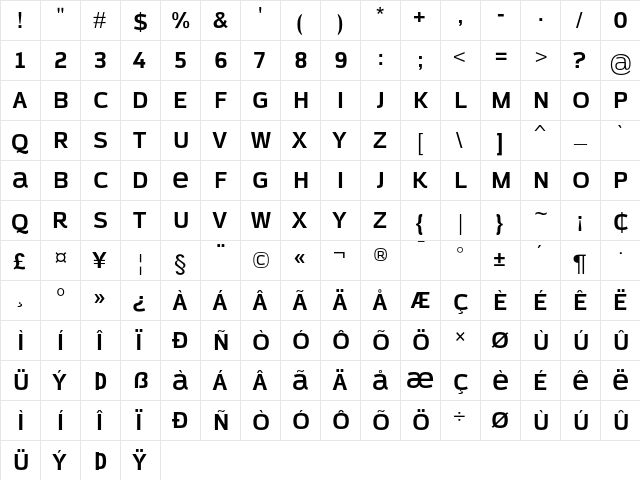
Azoft Sans Bold
| Foundry | Sergiy S. Tkachenko |
| Designer | Sergiy S. Tkachenko |
Design Context for Azoft Sans Typeface
Azoft Sans is a composed and adaptable typeface that performs quietly and consistently across a wide range of design contexts. The heavy weight commands attention and anchors typographic hierarchies.